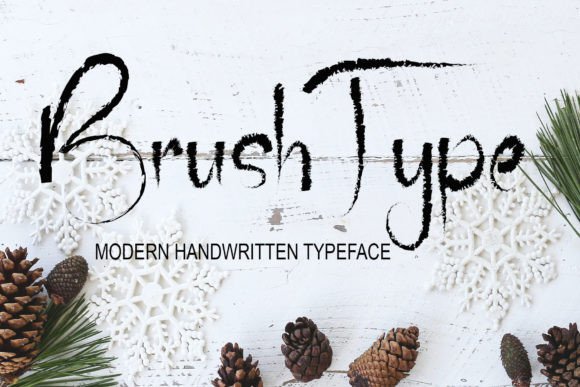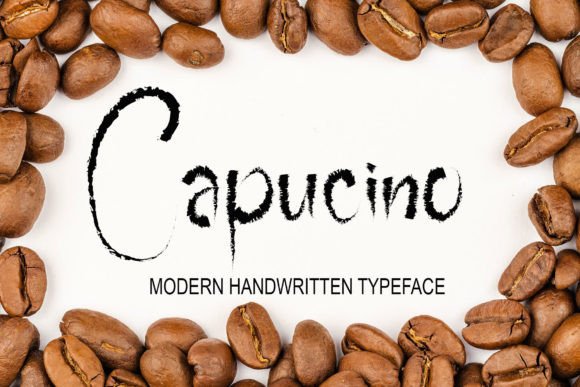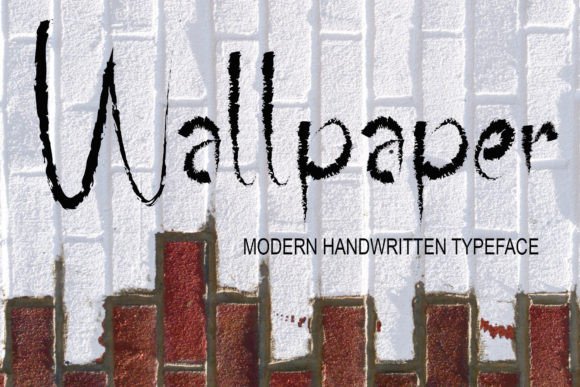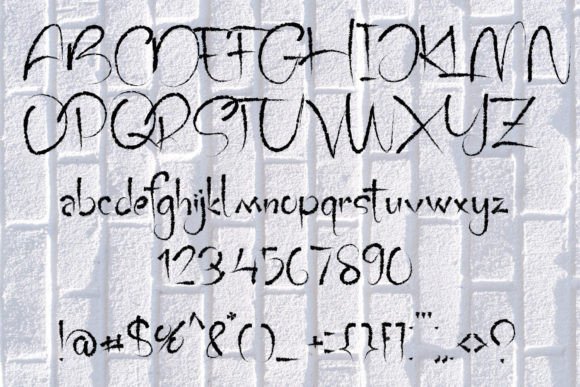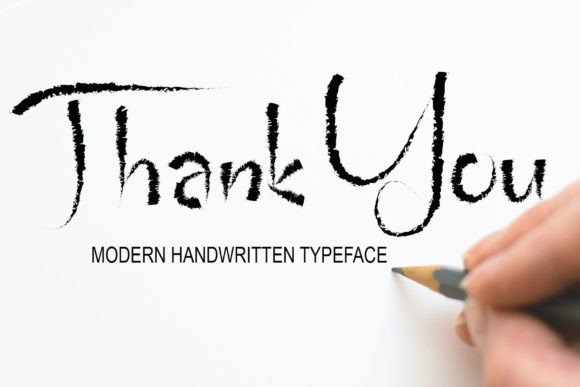
Introducing Buiseugot Font: The Perfect Handwritten Style for Your Designs
In the world of typography, a good font can make all the difference in the success of a design project. If you’re a designer or crafter looking for a unique and modern handwritten font to add a personal touch to your creations, look no further than Buiseugot Font. This beautiful font is perfect for a variety of designs that require a personalized style, such as wedding invitations, thank you cards, greeting cards, logos, and more.
What is Buiseugot Font?
Buiseugot Font is a modern handwritten font that boasts a distinctive and elegant style. Its unique charm makes it an excellent choice for designers who want to add a touch of personality to their work. The font’s flowing lines and cursive strokes give it a beautiful, hand-written feel that’s perfect for creating warm and inviting designs.
Characteristics of Buiseugot Font
So, what makes Buiseugot Font so special? Here are some of its key characteristics:
- Unique and Modern Style: Buiseugot Font has a fresh and contemporary look that’s perfect for designers who want to create modern and stylish designs.
- Handwritten Feel: The font’s handwritten style gives it a warm and personal touch that’s perfect for creating designs that require a human touch.
- Versatile: Buiseugot Font is highly versatile and can be used for a wide range of design projects, from wedding invitations to logos and branding materials.
- Elegant and Refined: The font’s elegant and refined style makes it perfect for creating sophisticated designs that require a high level of professionalism.
Use Cases for Buiseugot Font
Buiseugot Font is perfect for a wide range of design projects, including:
- Wedding Invitations: The font’s elegant and refined style makes it perfect for creating beautiful wedding invitations that set the tone for a special day.
- Thank You Cards: Buiseugot Font is also great for creating thank you cards that require a personal touch.
- Greeting Cards: The font’s handwritten style makes it perfect for creating greeting cards for special occasions, such as birthdays and holidays.
- Logos and Branding: Buiseugot Font can also be used for creating logos and branding materials that require a unique and modern style.
Why Choose Buiseugot Font?
So, why should you choose Buiseugot Font for your design projects? Here are some reasons:
- Unique Style: Buiseugot Font has a unique and modern style that will set your designs apart from the rest.
- High-Quality: The font is of high quality, making it perfect for professional design projects.
- Easy to Read: Despite its elegant and refined style, Buiseugot Font is easy to read, making it perfect for designs that require a high level of legibility.
- Versatile: The font is highly versatile and can be used for a wide range of design projects.
In conclusion, Buiseugot Font is a unique and modern handwritten font that’s perfect for designers and crafters who want to add a personal touch to their designs. Its elegant and refined style, combined with its versatility and high-quality, make it an excellent choice for a wide range of design projects. Whether you’re creating wedding invitations, thank you cards, greeting cards, logos, or branding materials, Buiseugot Font is sure to impress.